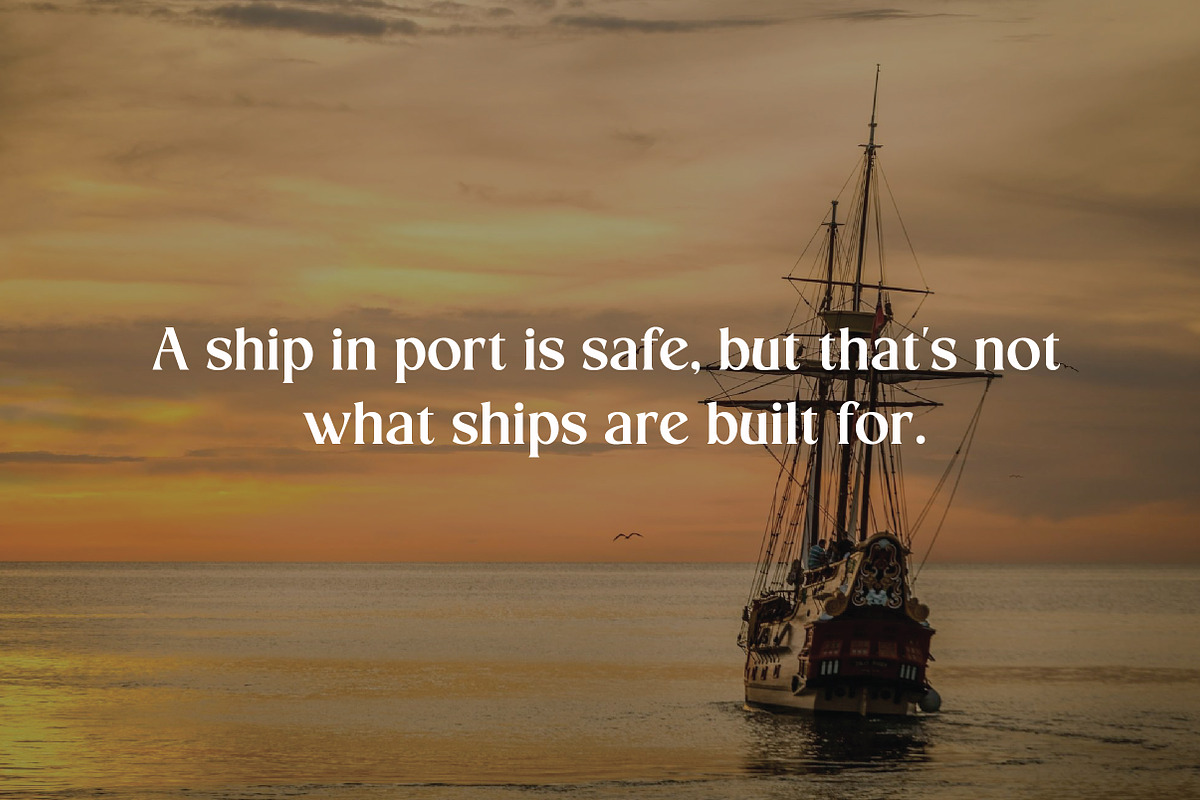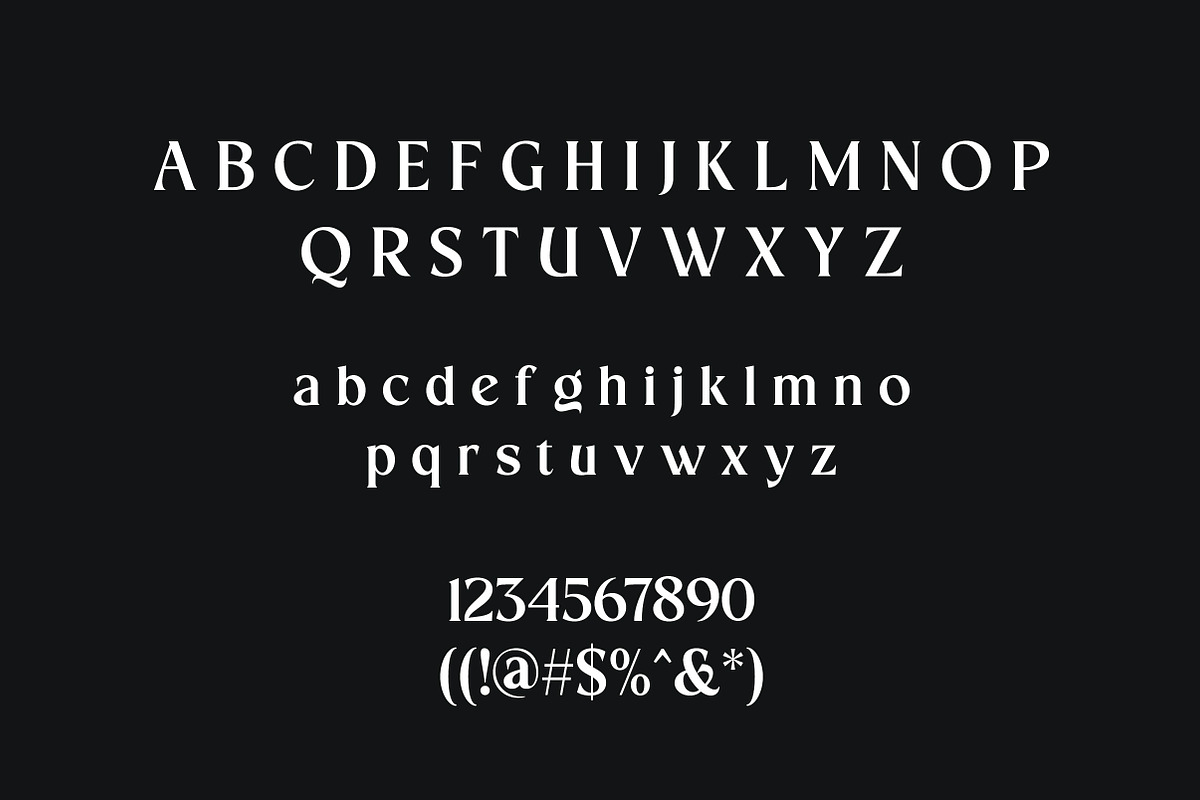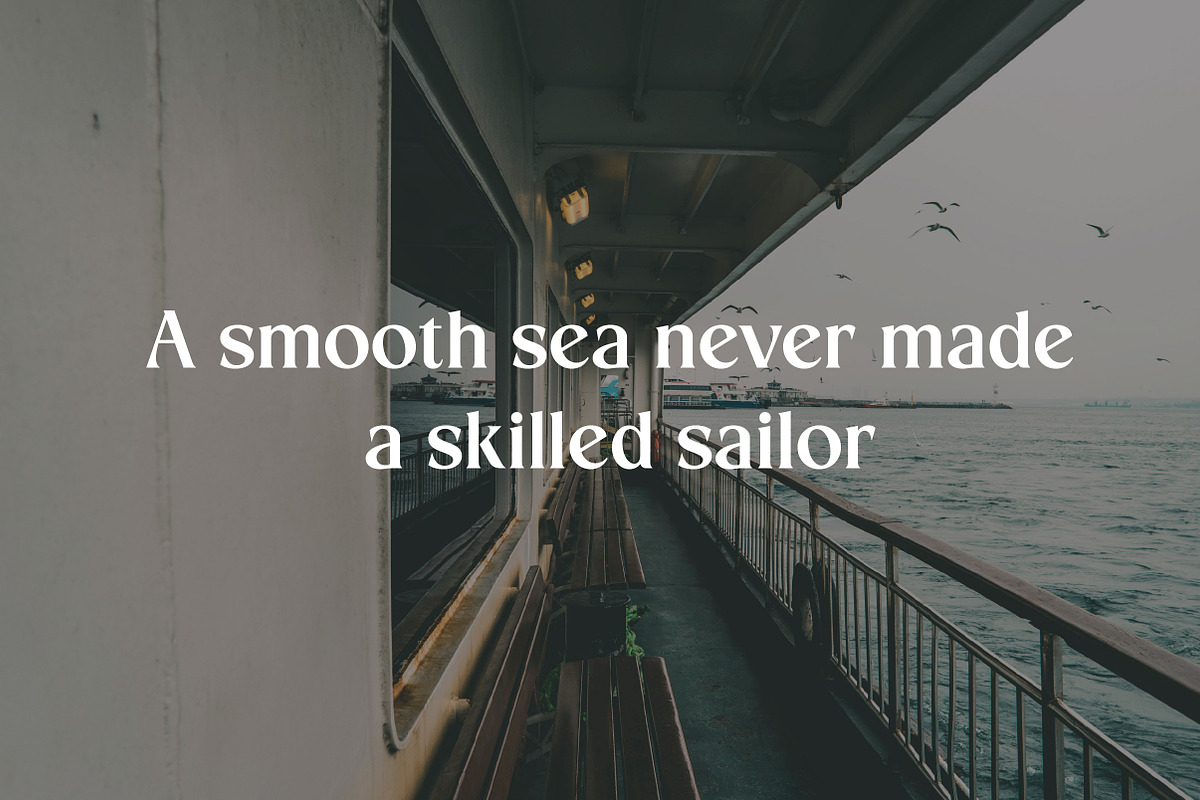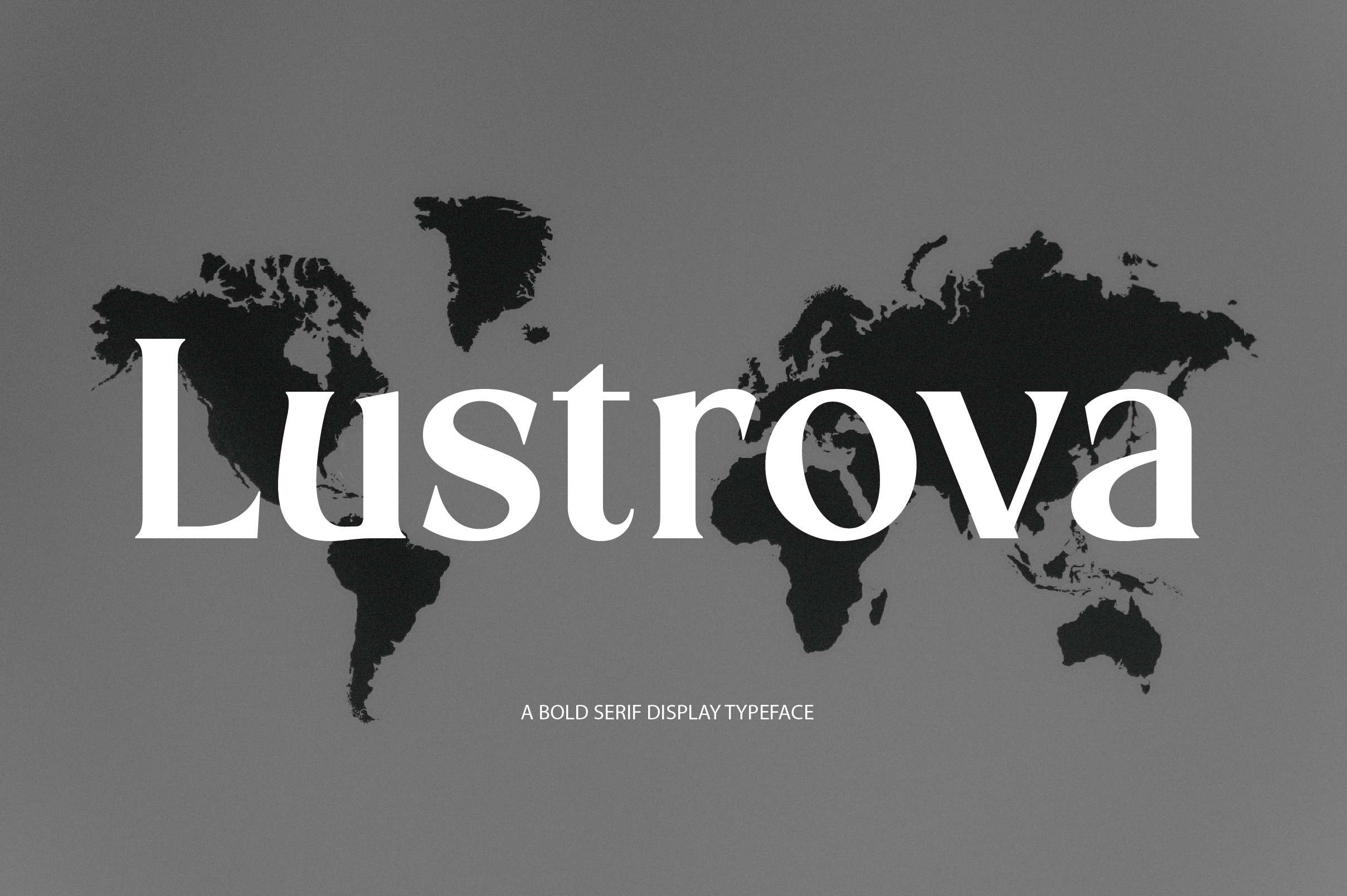
Lustrova | Classic Serif Typeface
Lustrova is a beautifully crafted serif typeface that blends timeless elegance with modern versatility. The Regular style features smooth curves, sharp serifs, and clean proportions, making it a perfect choice for branding, editorial layouts, logos, packaging, and formal design projects.
Designed for clarity and sophistication, Lustrova brings a refined presence to both headlines and body text. Whether used in luxury branding, magazines, or digital content, this typeface delivers a high-end and professional look.
Lustrova is an essential serif font for designers who appreciate classic beauty and contemporary style.